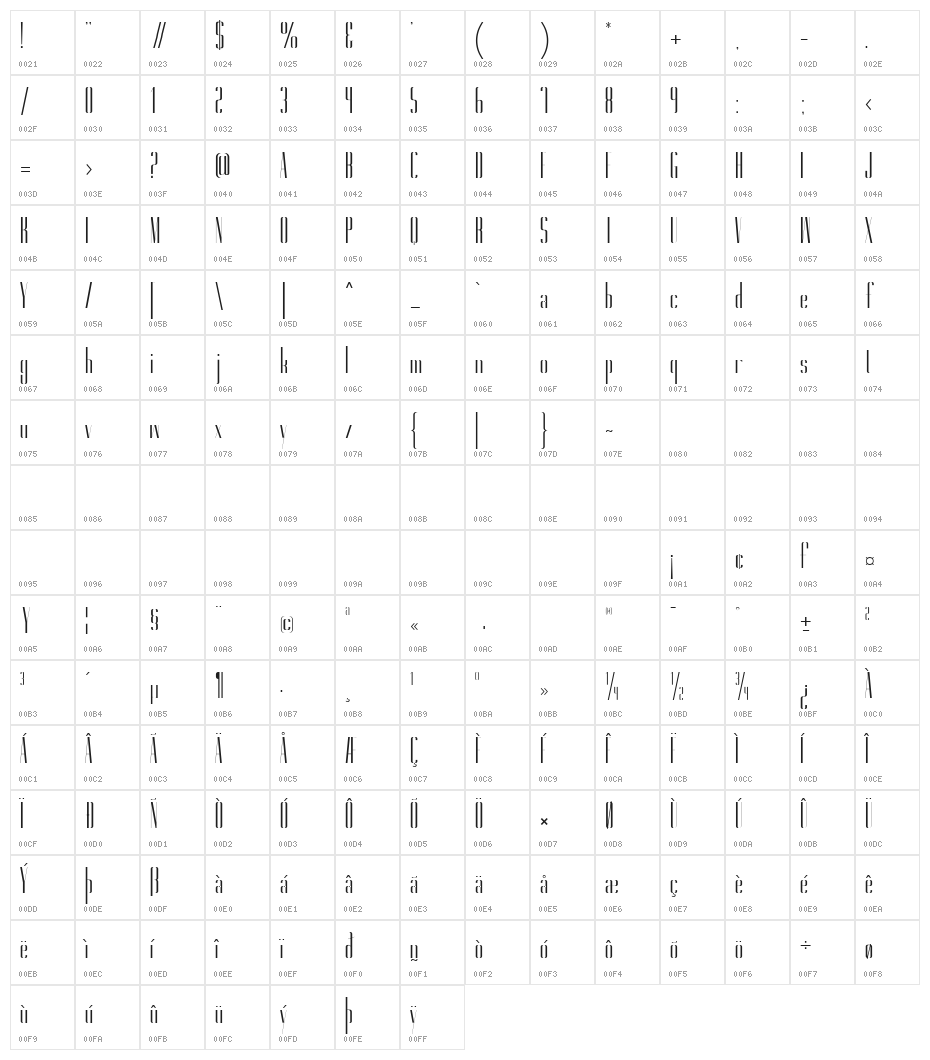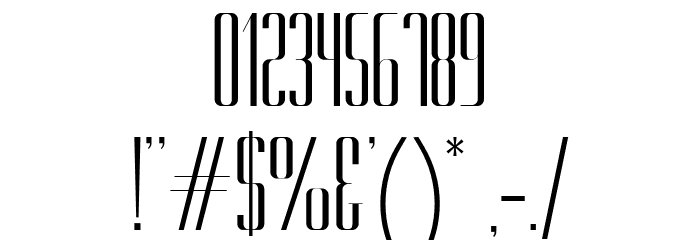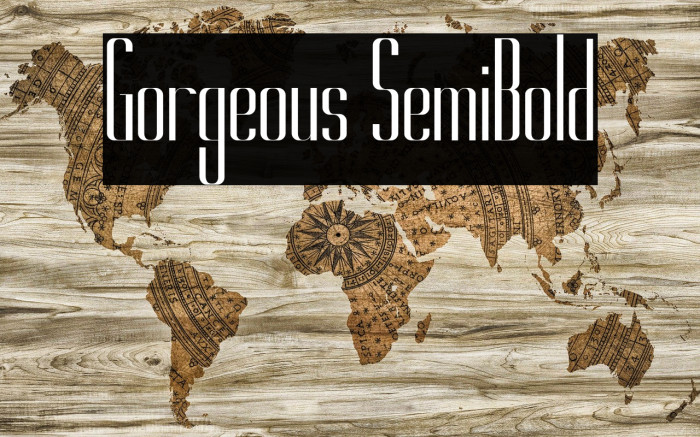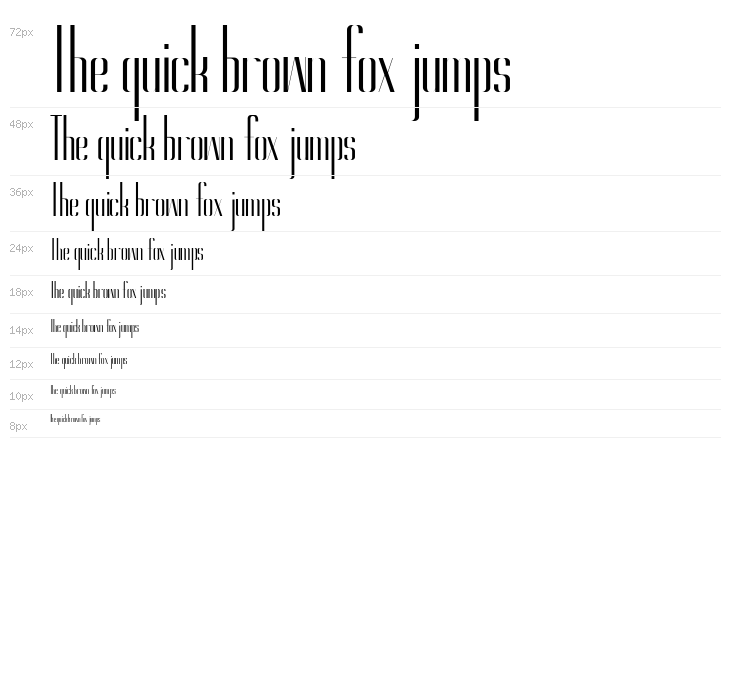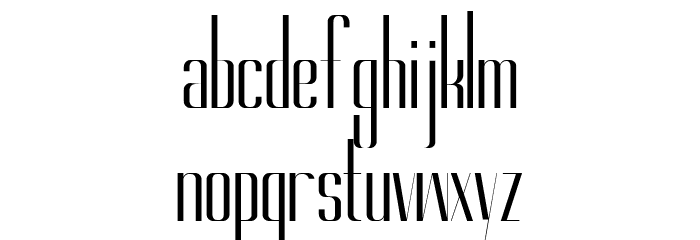
Gorgeous SemiBold Font
Gorgeous SemiBold Description
This font exhibits a modern and sleek design with elongated, narrow characters that convey a sense of elegance and sophistication. The uppercase letters are tall and slender, while the lowercase letters maintain a consistent height, creating a harmonious balance. The numerals are distinct and clear, matching the overall style of the alphabet. Special characters are designed with precision, adding to the font's versatility. The thin strokes and high contrast between thick and thin lines give it a refined appearance, making it suitable for upscale branding and editorial design.